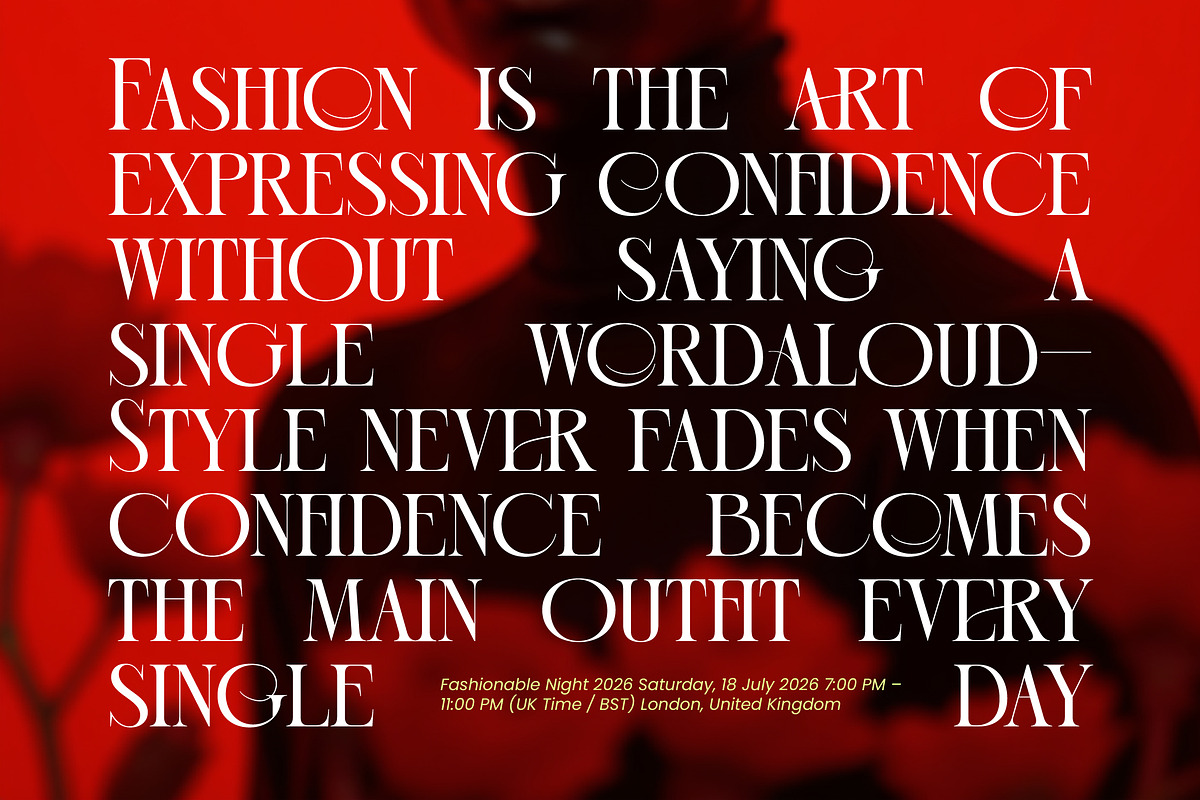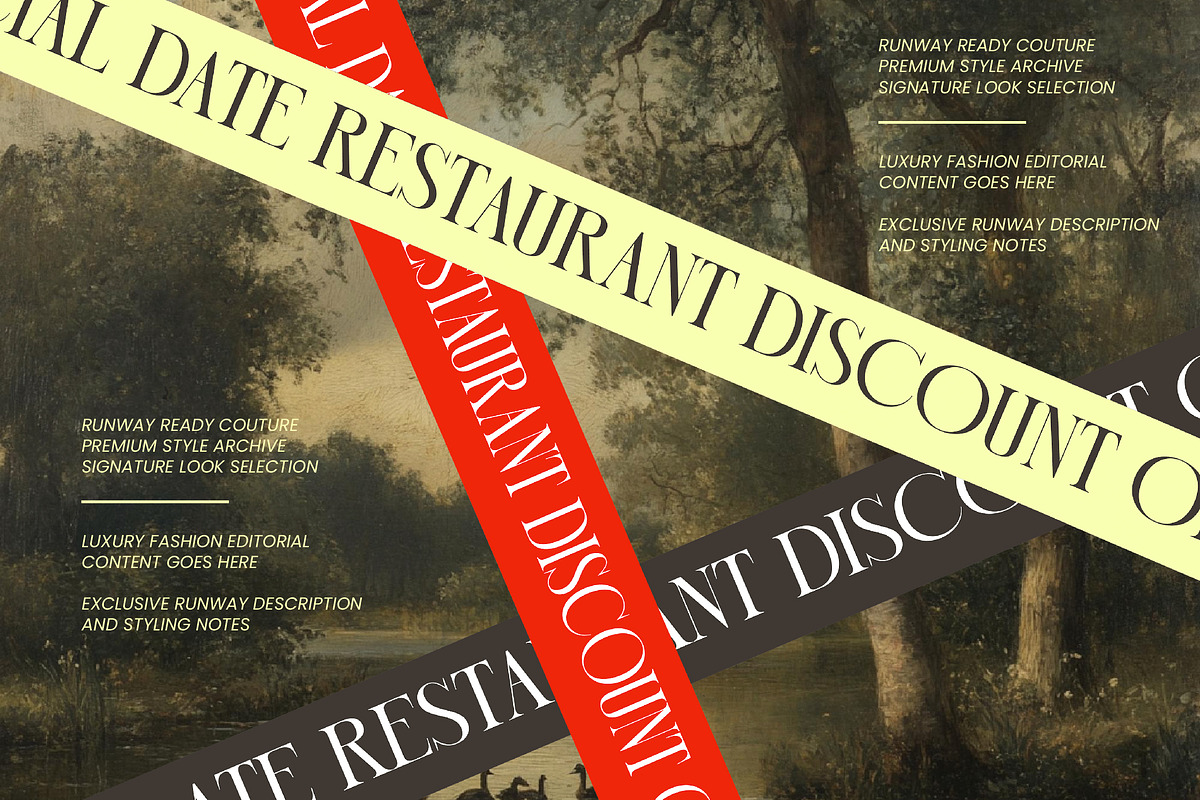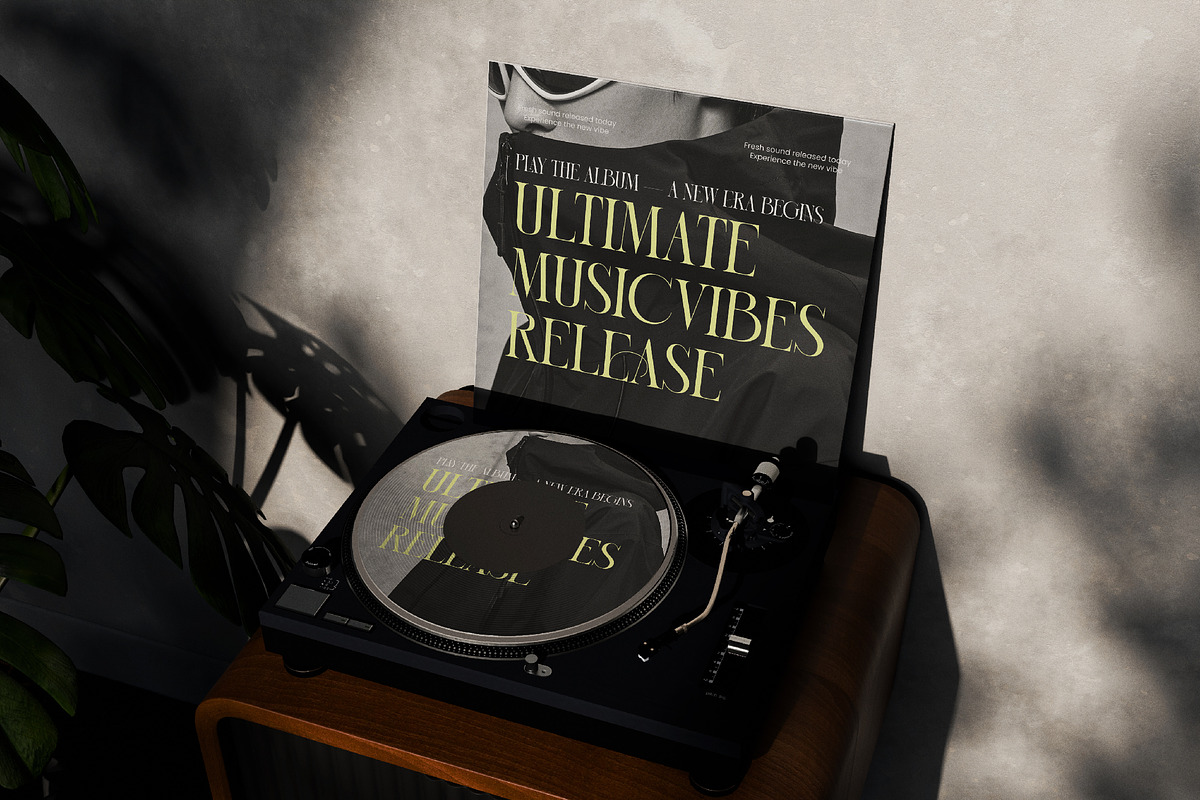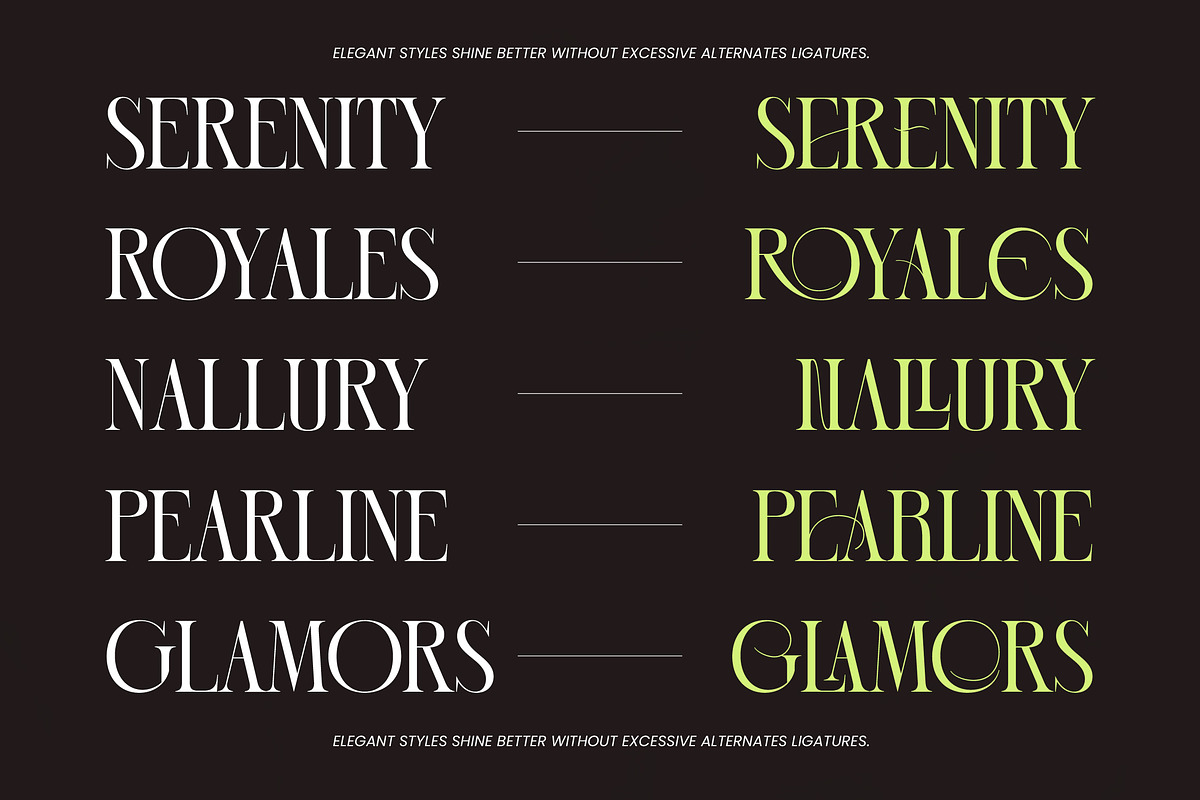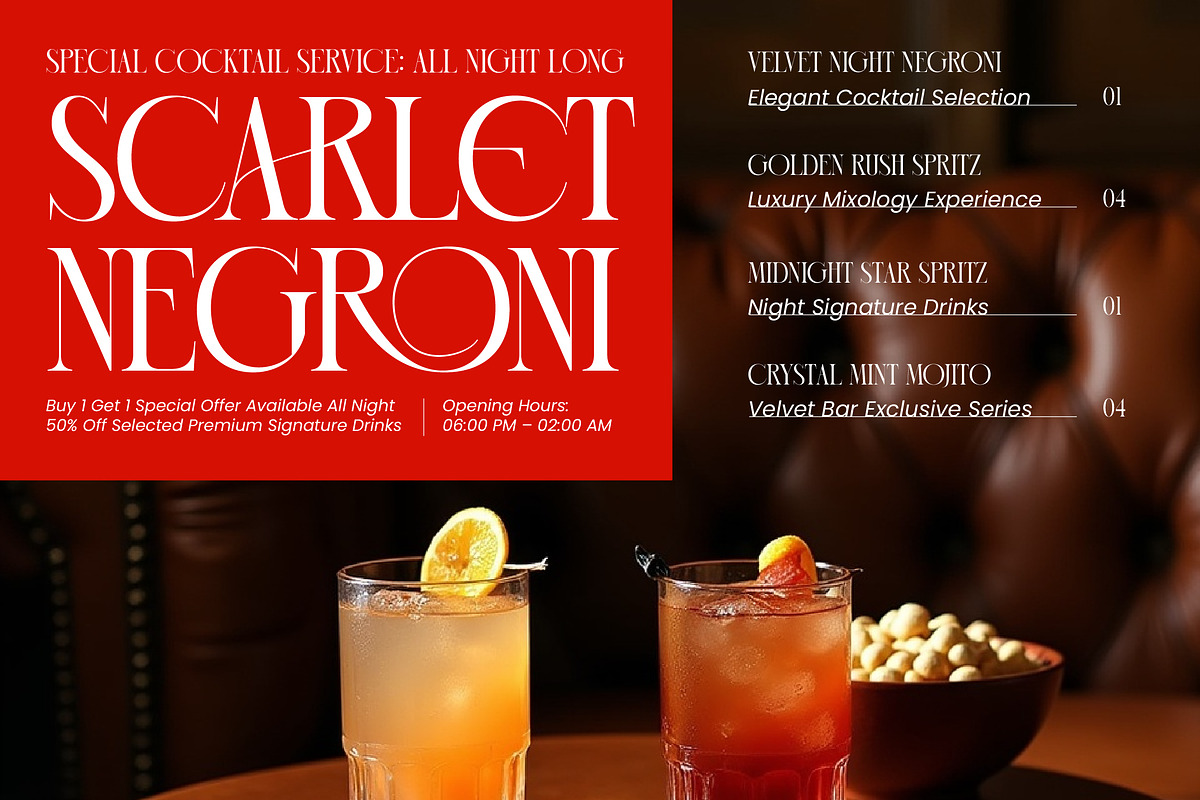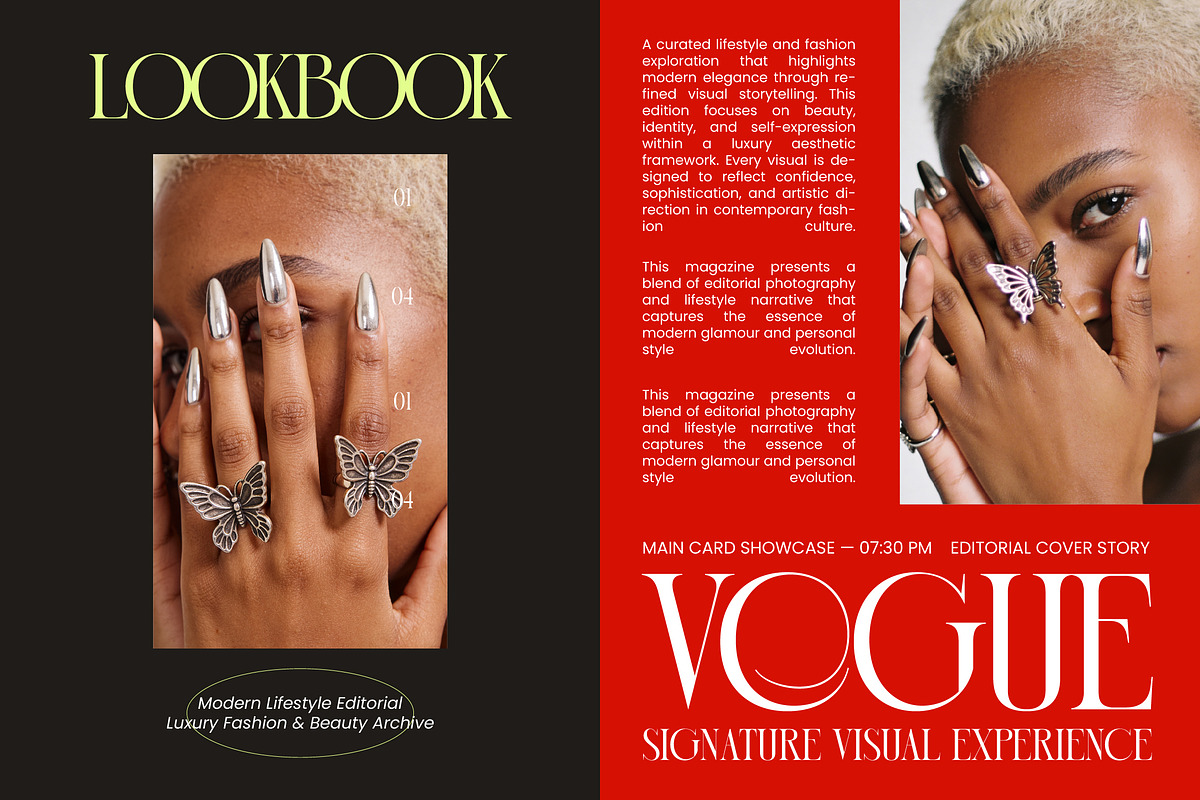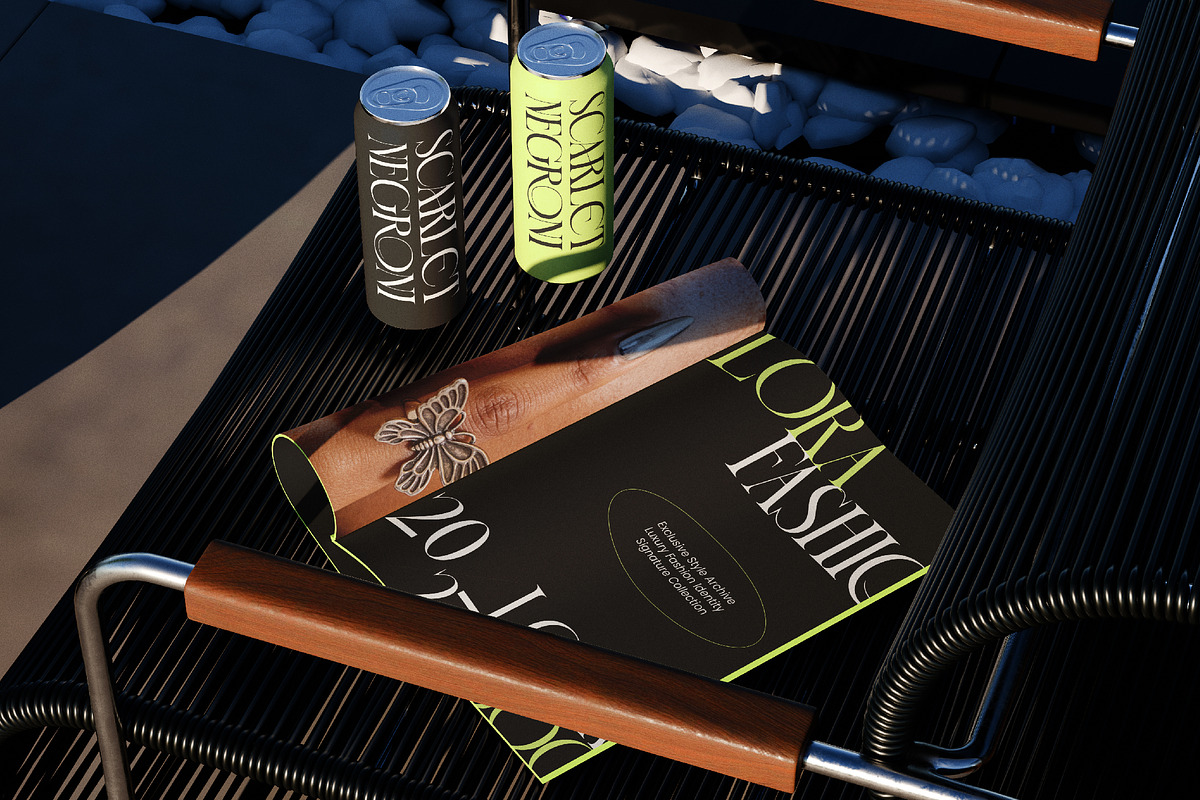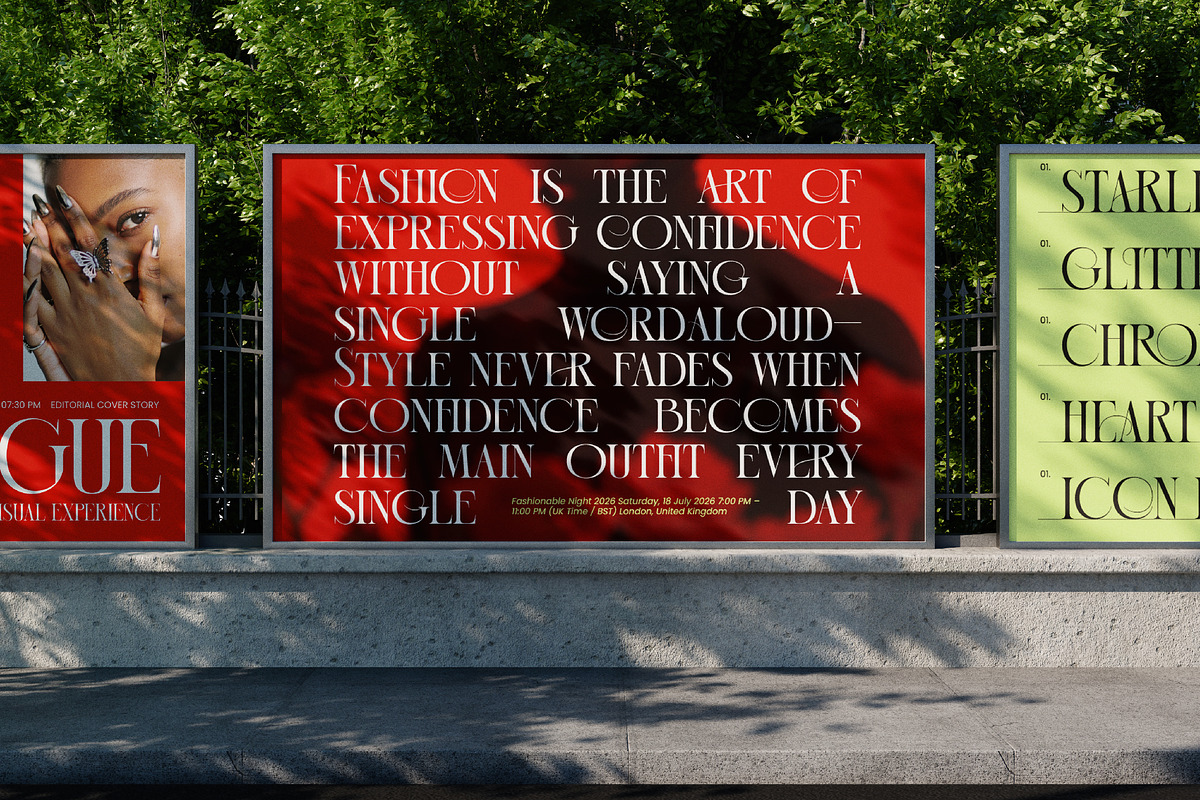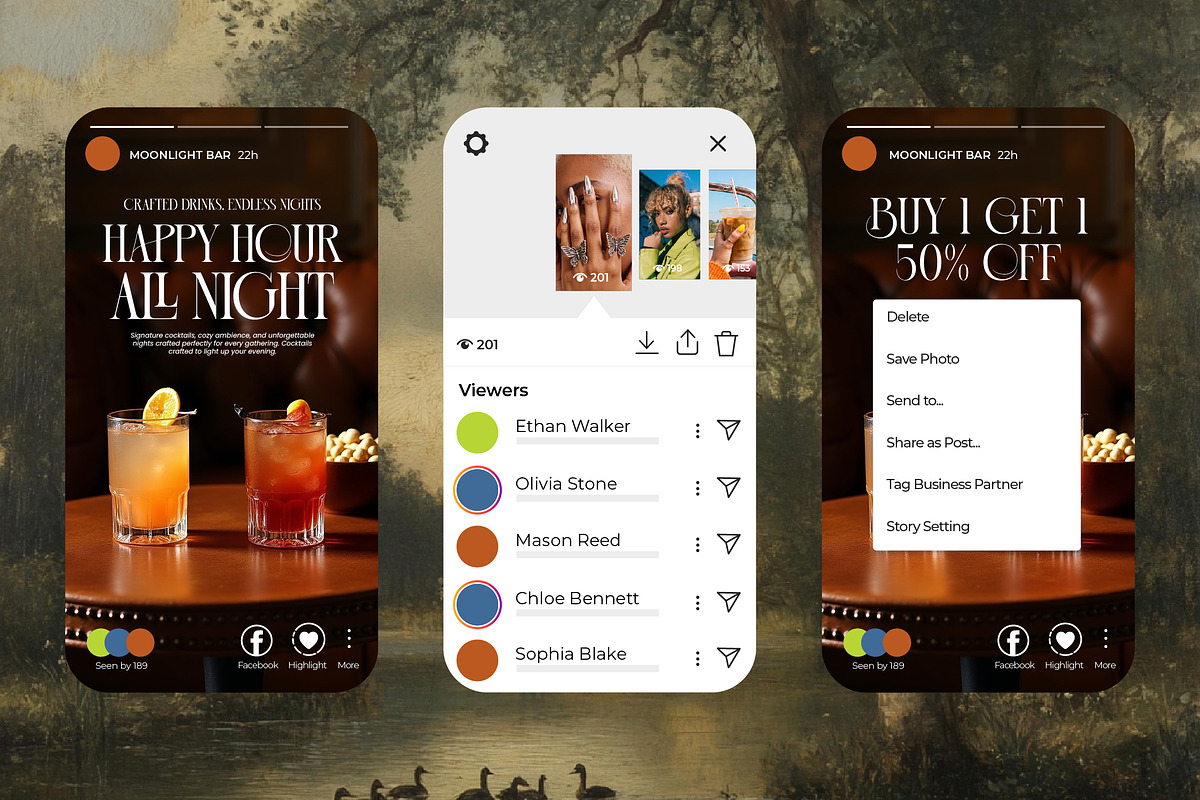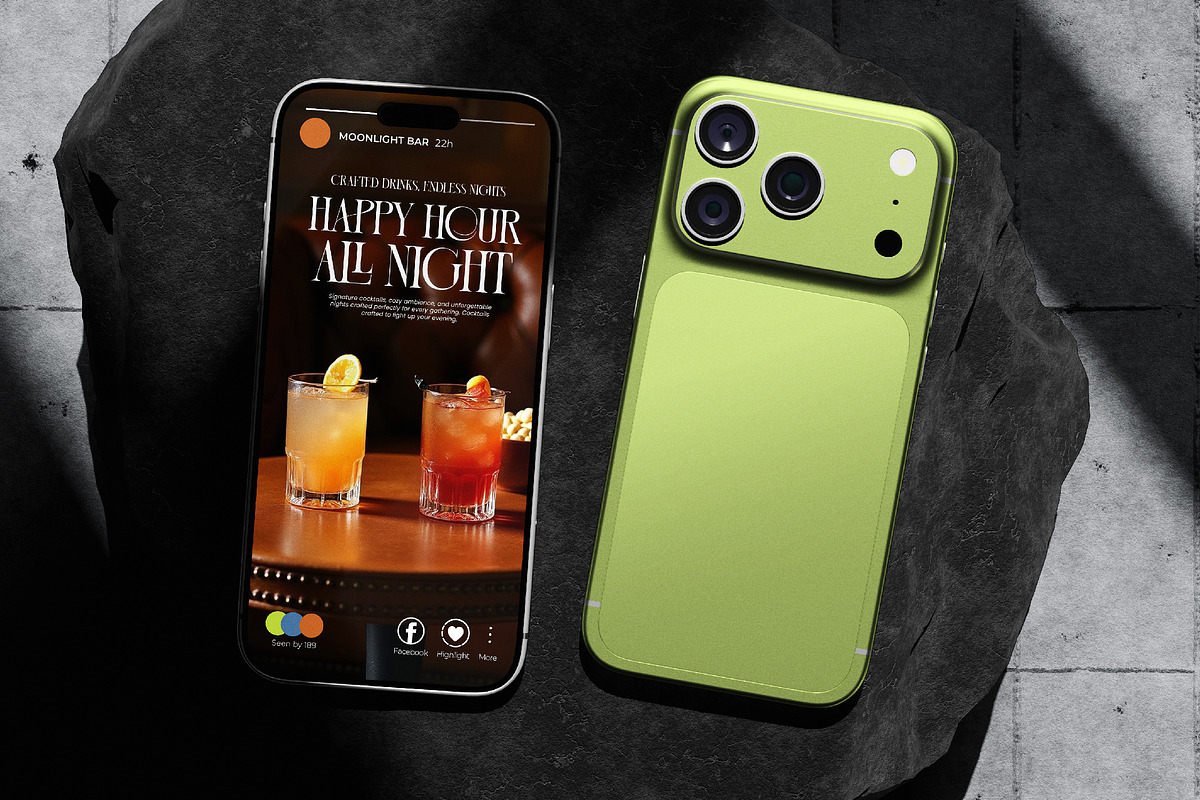
Blonare Luxury High Contrast Serif
Blonare – Luxury High Contrast Serif , Elevate your brand identity with a typeface that embodies pure sophistication and modern grace. Blonare – Luxury High Contrast Serif is a masterpiece of typography, blending timeless elegance with a contemporary aesthetic. Its striking high-contrast strokes and refined curves create a visual rhythm that commands attention while maintaining a sense of understated luxury. This typeface is meticulously designed for creators who demand a bold visual statement without sacrificing premium quality or legibility.
Expand your creative horizons and reach a global audience with ease through superior technical features. With its extensive multilingual support, Blonare – Luxury High Contrast Serif adapts seamlessly across global markets, making it incredibly versatile for international projects. Whether your brand is launching in Europe, Asia, or the Americas, this font ensures consistent brand messaging and typographic excellence across diverse linguistic landscapes. It is the ultimate tool for designers working on cross-border campaigns.
Unleash unparalleled creative freedom through an expansive set of unique characters and decorative options. Featuring a wide array of bespoke ligatures and stylistic alternates, Blonare – Luxury High Contrast Serif offers infinite possibilities for custom typography. The hand-crafted details and artistic flourishes allow for unique designs that feel tailor-made for each specific application. These editorial-style characters provide the visual depth required for high-impact headers and distinguished brand marks.
Target the high-end market with a typeface perfectly suited for industries where prestige and style are paramount. Blonare – Luxury High Contrast Serif is the ideal choice for luxury branding, high-end packaging, and editorial design. It is perfect for fashion magazines, beauty product labels, glamorous social media content, and upscale logo design. By choosing Blonare – Luxury High Contrast Serif, you are investing in a professional asset that transforms ordinary text into a curated luxury experience.